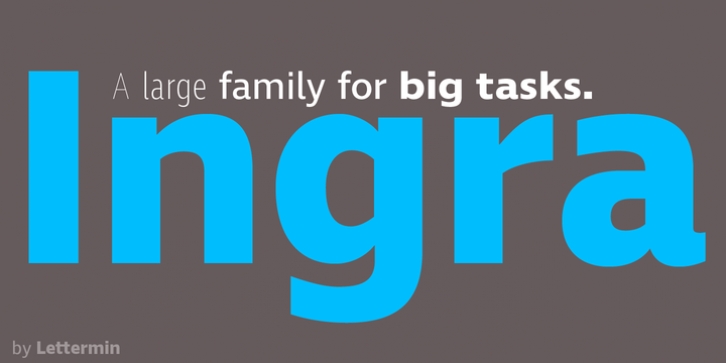
Publisher: Lettermin Type Foundry
I started designing Ingra in 2007, as a derivative of a typeface specifically drawn for newspapers’ info-graphics. The earlier design of the typeface was a narrower, made in order to optimise the use of space in a newspaper setting. After a few years, I came up with the wider version for a broader range of uses, since designers already used it in different ways. After a few attempts, I left the old fonts behind and I decided to redraw it as a brand new typeface. The resulting typeface has a strong connection to its ancestor in terms of functionality, but it has a different character.
Ingra comes in 10 upright styles and three widths.
With a wide range of styles, from Hair to Extra Bold, it is well-suited for any kind of editorial, advertising, packaging or corporate design, both on print and screen.
Every Ingra style comes with a set of 1.626 characters. It includes alternate characters, all kinds of numerals, standard and a bunch of other useful ligatures, real small caps, inferior and superior letters and numbers, wide set of currency symbols and more than 240 pictograms and ornaments.